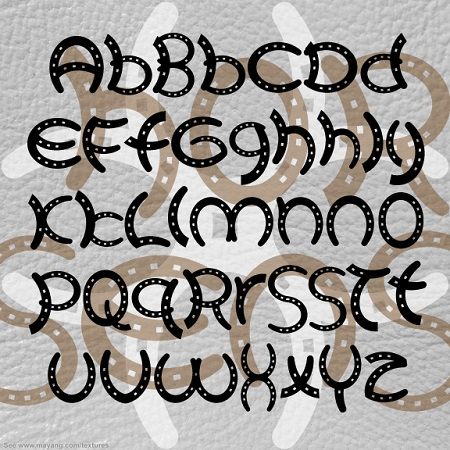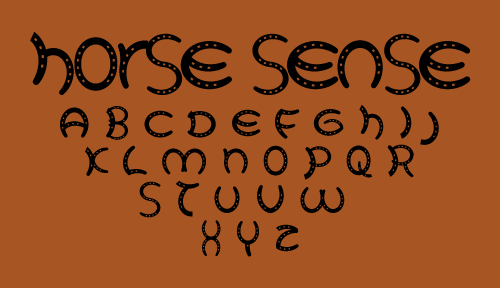
Horse Sense
About Horse Sense
HORSE SENSE is a fun font with all the letters made out of horse shoes. The shoe sizes vary, some are whole and some are cut and “welded” together, as in the original sign that inspired it. And there are many alternates for extra fun.